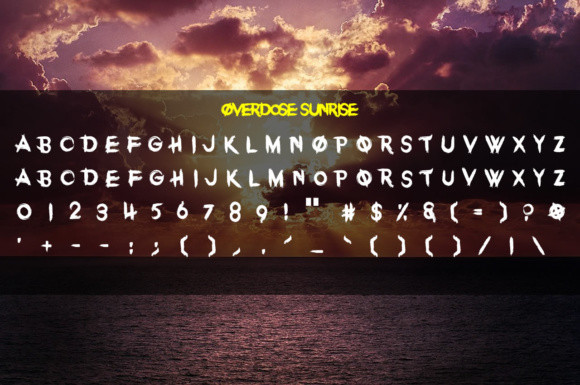
Introduction to Overdose Sunrise Font
Have you ever found yourself lost in the depths of a creative project, surrounded by endless design possibilities and a blank canvas staring back at you? That’s where I was when I stumbled upon the Overdose Sunrise Font – a game-changing display font that breathed new life into my project. With its unique blend of elegance and edginess, this font quickly became the missing piece I needed to take my design to the next level.
Key Features of Overdose Sunrise Font
- High-quality design resource suitable for various creative projects, including graphic design, digital art, and web development.
- Features a unique and eye-catching design, perfect for adding a touch of personality to any project.
- Size: Includes multiple font sizes and weights, allowing for flexibility and customization in your design.
Honest Review: Overdose Sunrise Font
I recently stumbled upon the Overdose Sunrise Font, a free download that I decided to try out for my latest creative project. As a designer, I’m always on the lookout for high-quality design resources that can help elevate my work.
What works well: ✨ The Overdose Sunrise Font has a unique, eye-catching design that’s perfect for projects that need a bit of whimsy. The font is highly customizable, making it easy to adjust the size, color, and style to fit your needs. The transparent background also makes it easy to layer over other design elements.
What doesn’t work well: ⚠️ While the font is free to download, it’s not without its limitations. The font is a bit on the thin side, which can make it difficult to read in certain situations. Additionally, the font doesn’t include a comprehensive character set, which may be a problem for designers who need to typeset complex text.
Overall impression: I was impressed with the Overdose Sunrise Font’s unique design and high level of customizability. While it may have some limitations, it’s a great resource for designers who need a free, high-quality font for their creative projects.
- Unique, eye-catching design
- Limited character set
- Thin font
The Overdose Sunrise Font is a high-quality design resource that can elevate any creative project. With its unique and eye-catching style, it’s perfect for designers, artists, and writers looking for a free download to add a touch of sophistication to their work.
The Overdose Sunrise Font is perfect for a variety of design projects, including:
- Brand identities and logos.
- Advertising and marketing materials.
Alternatives to Overdose Sunrise Font
Compared to Overdose Sunrise Font, Pacifico has a more refined and polished look, making it suitable for a wider range of design applications. While Overdose Sunrise Font has a more edgy, grungy feel, Pacifico’s soft, cursive lines create a more subtle and sophisticated design.